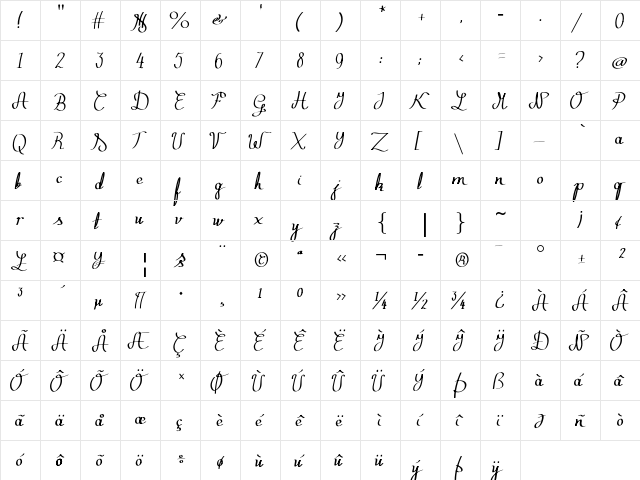
Zephiroth Regular
| Designer | Type Sailor - David Espinosa |
Design Context for Zephiroth Typeface
Zephiroth is a composed and adaptable typeface that performs quietly and consistently across a wide range of design contexts.